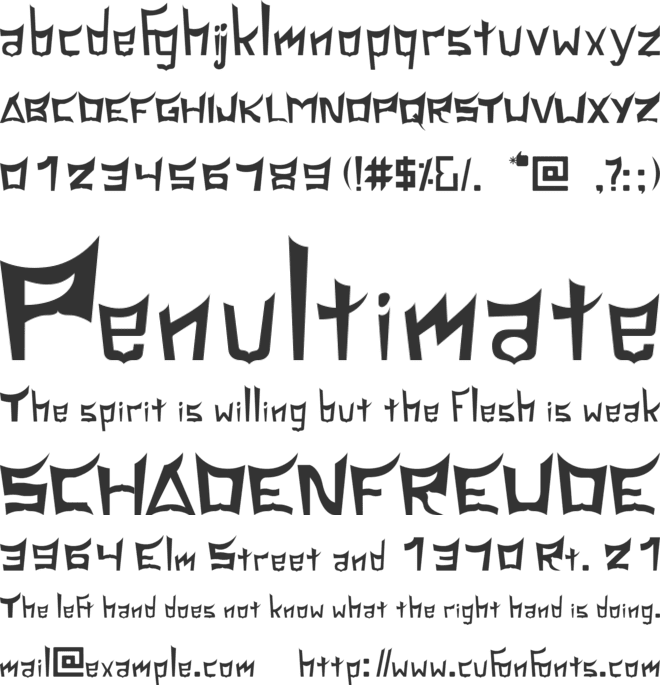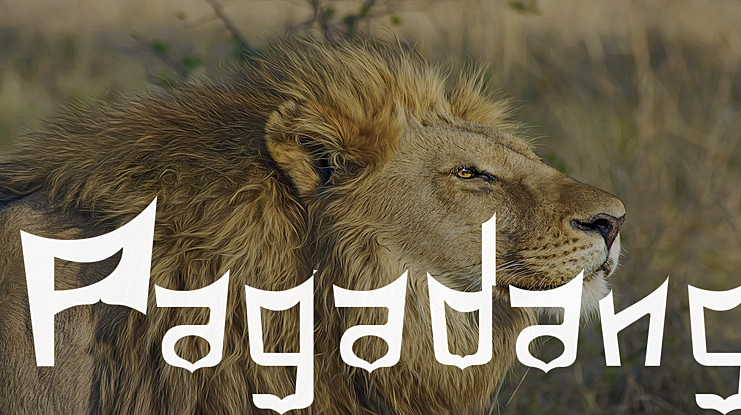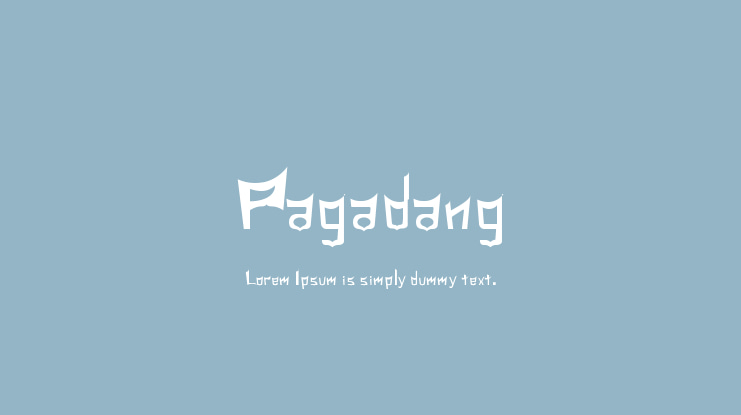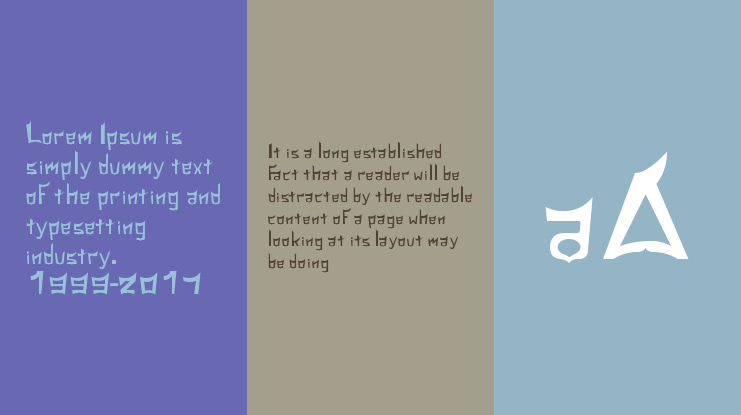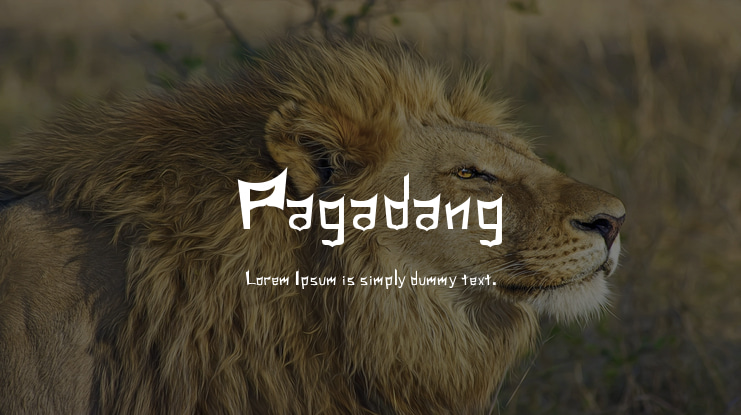
Pagadang Font
This font is inspired by Rumah Gadang from Padang, Indonesia. Rumah Gadang is one of the characteristic of Indonesia. I hope you like it.